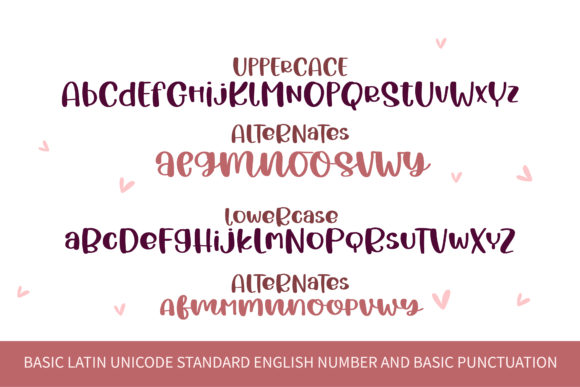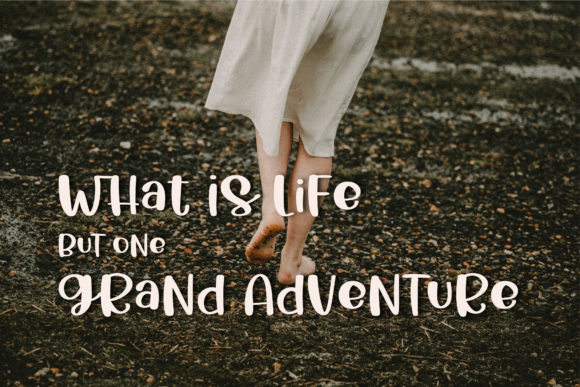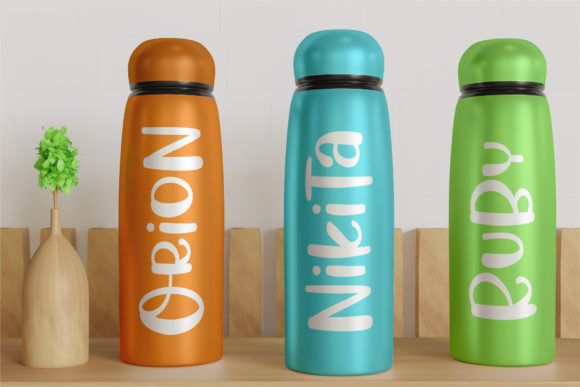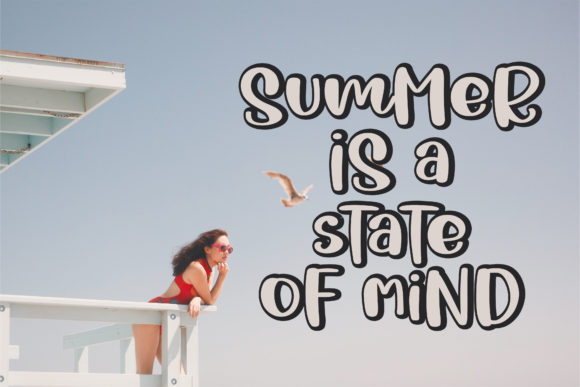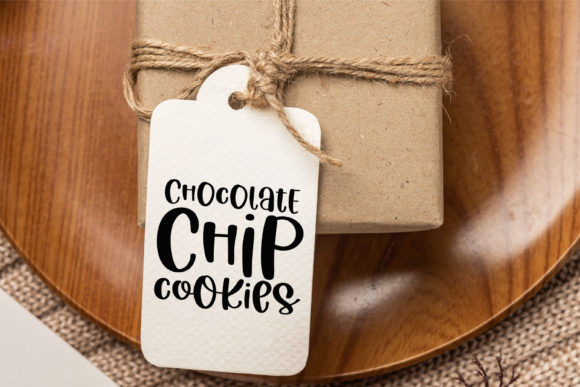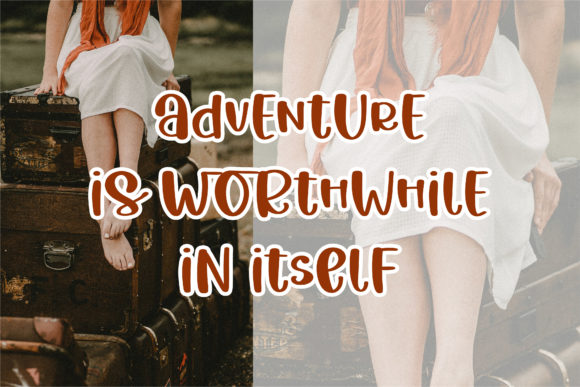
Unlock Your Creativity with Adventure More Font
Have you ever stared at a blank page, waiting for the perfect idea to strike? The blank page stare, a familiar feeling for many creatives. It’s in these moments of uncertainty that our imagination takes over, and we let our minds wander to the possibilities. The excitement builds up, and before we know it, we’re diving headfirst into a new project, eager to bring our vision to life.
For designers looking to add a touch of whimsy and personality to their work, Adventure More Font is the perfect companion. This ravishing display font is designed to evoke a sense of adventure and playfulness, making it an ideal choice for a wide range of designs, from logos to posters and everything in between.
Adventure More Font Key Features
- Font Family: A sans-serif font designed for adventurous and bold typography.
- Unique Characteristics: Features a custom-designed letterform set with distinct line weights, making it ideal for headlines and titles.
Review of Adventure More Font
As a designer, I was excited to try out the Adventure More Font. Overall, I think it has some great qualities, but also some limitations. Let’s dive in and see what it’s all about.
- Unique style: Adventure More Font has a distinctive and adventurous feel to it, perfect for projects that need a bit of flair.
- Legibility: Despite its quirky nature, the font is still quite legible, even at smaller font sizes.
- Character set: The font comes with a wide range of characters, including punctuation and accents.
- Limited language support: Adventure More Font seems to be focused primarily on English, with limited support for other languages.
- No bold or italic variations: While the font has a unique style, it would be great to have more variations to add emphasis or tone.
- May not be suitable for formal projects: Adventure More Font’s playful nature may not be suitable for more formal projects, such as business reports or academic papers.
Overall, I think Adventure More Font is a great choice for projects that need a bit of personality and flair. However, it may not be the best choice for more formal or technical projects. With a bit more development, I think this font could be a real game-changer.
Getting the Most Out of Adventure More Font
For optimal results, use the Adventure More font in conjunction with bold and italic text to create a sense of adventure and excitement.
Experiment with different font sizes and colors to create visual interest and emphasis.
The Adventure More font is ideal for:
- Outdoor and adventure-themed projects
- Travel and tourism marketing materials
- Experiential and event branding
Alternatives to “Adventure More Font” for Designers
Rajdhani Font
Rajdhani is a sans-serif font designed by Indian Type Foundry, suitable for body text and headings. It’s highly legible and suitable for digital platforms. When to use: body text, headings, digital platforms.
Comparison to Adventure More Font: Rajdhani has a more modern and clean design, whereas Adventure More Font has a more vintage and adventurous feel. Rajdhani is also more versatile and can be used in a wide range of applications.
Montserrat is a sans-serif font designed by Julieta Ulanovsky, suitable for headings and titles. It’s highly legible and has a strong geometric structure. When to use: headings, titles, urban and modern designs.
Comparison to Adventure More Font: Montserrat has a more urban and modern feel, whereas Adventure More Font has a more vintage and adventurous feel. Montserrat is also more condensed and suitable for smaller spaces.
Merriweather is a serif font designed by Eben Sorkin, suitable for body text and book titles. It’s highly legible and has a classic feel. When to use: body text, book titles, classic designs.